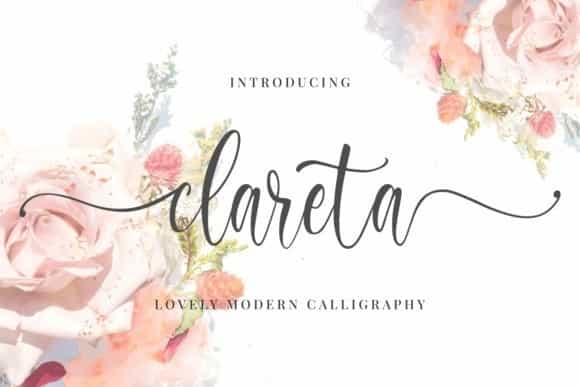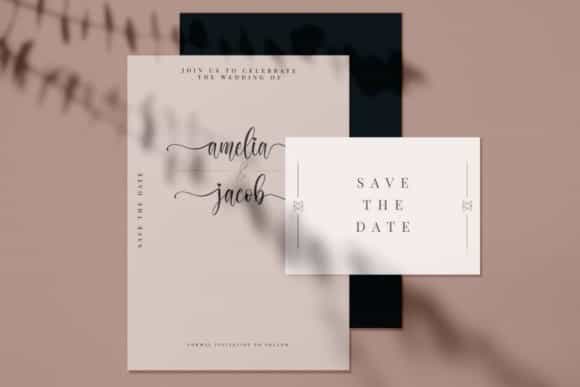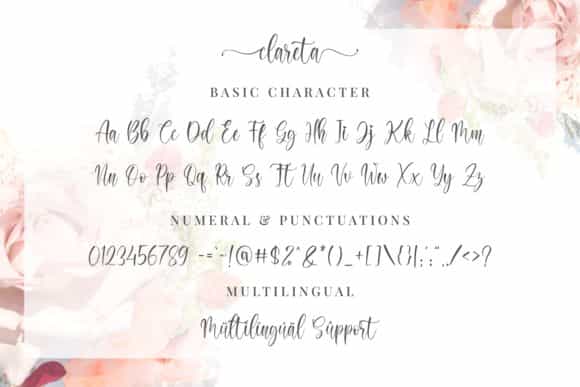
Clareta is a beautiful contemporary calligraphy script font. This font was designed for those who are looking for a piece of refinement and style to their designs. With calligraphy script style this font will perfect for many different project ex: logo, photography, watermark, quotes, blog header, poster and so on.